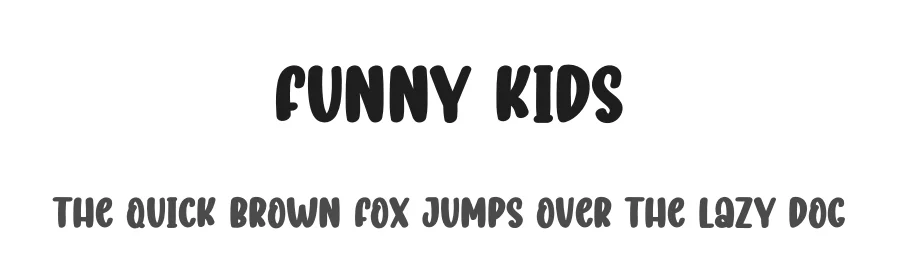
About Greastly Font
| Designer | MaulanaCreative |
Greastly supports 89 languages.
Greastly Font is a decorative font that shines as a display or heading face. Pair it with a clean sans-serif or serif font for body text β the contrast creates a clear hierarchy while the two styles stay balanced and easy to read.